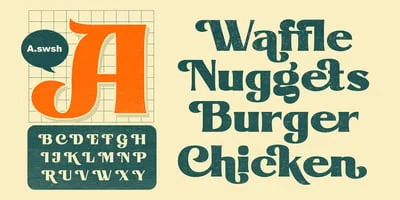
Ailey Display Font
Ailey Display Font is perfect for dance studio branding, performing arts theater signage, ballet academy materials, contemporary dance festivals, artistic movement workshops, cultural arts centers, graceful fashion campaigns, expressive choreography posters, elegant performance programs, and any fluid project that celebrates the poetry of human movement and the timeless elegance of dance expression.
What makes Ailey Display Font exciting is its graceful fluidity that captures the elegant artistry of dance and the expressive beauty of human movement in motion. This typeface embodies the spirit of choreographic excellence with flowing letterforms that seem to leap and pirouette across the page with balletic grace. The font's rhythmic character makes it perfect for brands and projects that want to communicate artistic expression, physical grace, and the transformative power of movement as a universal language of human emotion.
The Ailey Display Font family includes multiple weights and expressive variations, featuring light, regular, and bold versions along with italic styles and decorative elements inspired by dance notation and movement patterns. This comprehensive collection allows designers to create dynamic artistic typography that maintains the font's signature graceful character while providing flexibility for various performing arts and cultural design applications.
When exploring authentic dance typography, Ailey Display Font offers designers an exceptional opportunity to work with a typeface that genuinely captures the spirit of choreographic artistry and expressive movement. This font demonstrates innovative design thinking by incorporating the flowing rhythm and graceful transitions that define both professional dance performance and the human body's natural capacity for artistic expression.
Professional designers appreciate Ailey Display Font for its ability to instantly communicate artistic sophistication and cultural refinement across various performing arts platforms. The font's elegant character makes it particularly effective for dance companies, cultural institutions, and artistic organizations seeking to establish memorable identities that resonate with audiences who appreciate the intersection of physical artistry and emotional expression.
The timeless appeal of Ailey Display Font lies in its perfect representation of artistic grace and expressive movement that continues to inspire audiences across cultures and generations. This typeface serves as a celebration of the human body's capacity for artistic expression and the universal language of dance that transcends cultural boundaries.
For creative professionals working with performing arts and cultural brands, Ailey Display Font represents the ultimate typography solution that brings authentic dance elegance and artistic grace to any application, ensuring designs reflect the fluid beauty and expressive power that define the most moving and memorable dance performances.